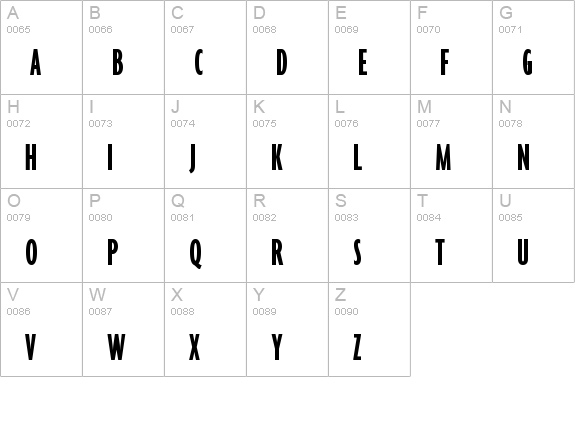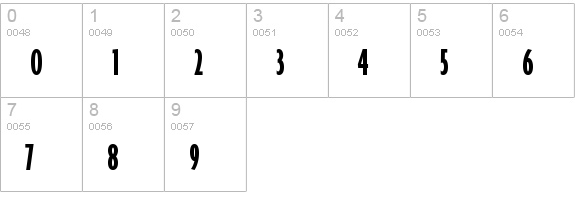
Agenda-BoldUltraCondensed Font Details
Agenda-BoldUltraCondensed font is a sleek and modern typeface designed for maximum impact and readability in tight spaces. Its bold and ultra-condensed letters make it perfect for headlines, logos, and other design projects where space is limited but impact is key. The bold weight gives this font a strong presence, while the condensed design ensures that each character packs a punch. Best of all, Agenda-BoldUltraCondensed font is available for free download at FontsMarket.com. This means that you can add this powerful font to your design arsenal without breaking the bank. Whether you're a professional designer looking to add a new tool to your kit or a hobbyist looking to spice up your projects, this font is a must-have. Download Agenda-BoldUltraCondensed today and take your designs to the next level!